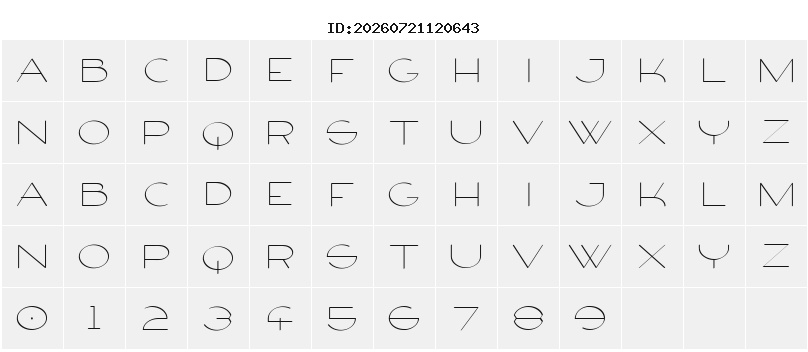
• Font Name: Firty
• Designer: Dominik Krotscheck
About Firty.ttf
Firty.ttf is a modern, elegant sans-serif font designed for ultimate readability and visual harmony. Perfect for branding, headlines, web design, and print materials.